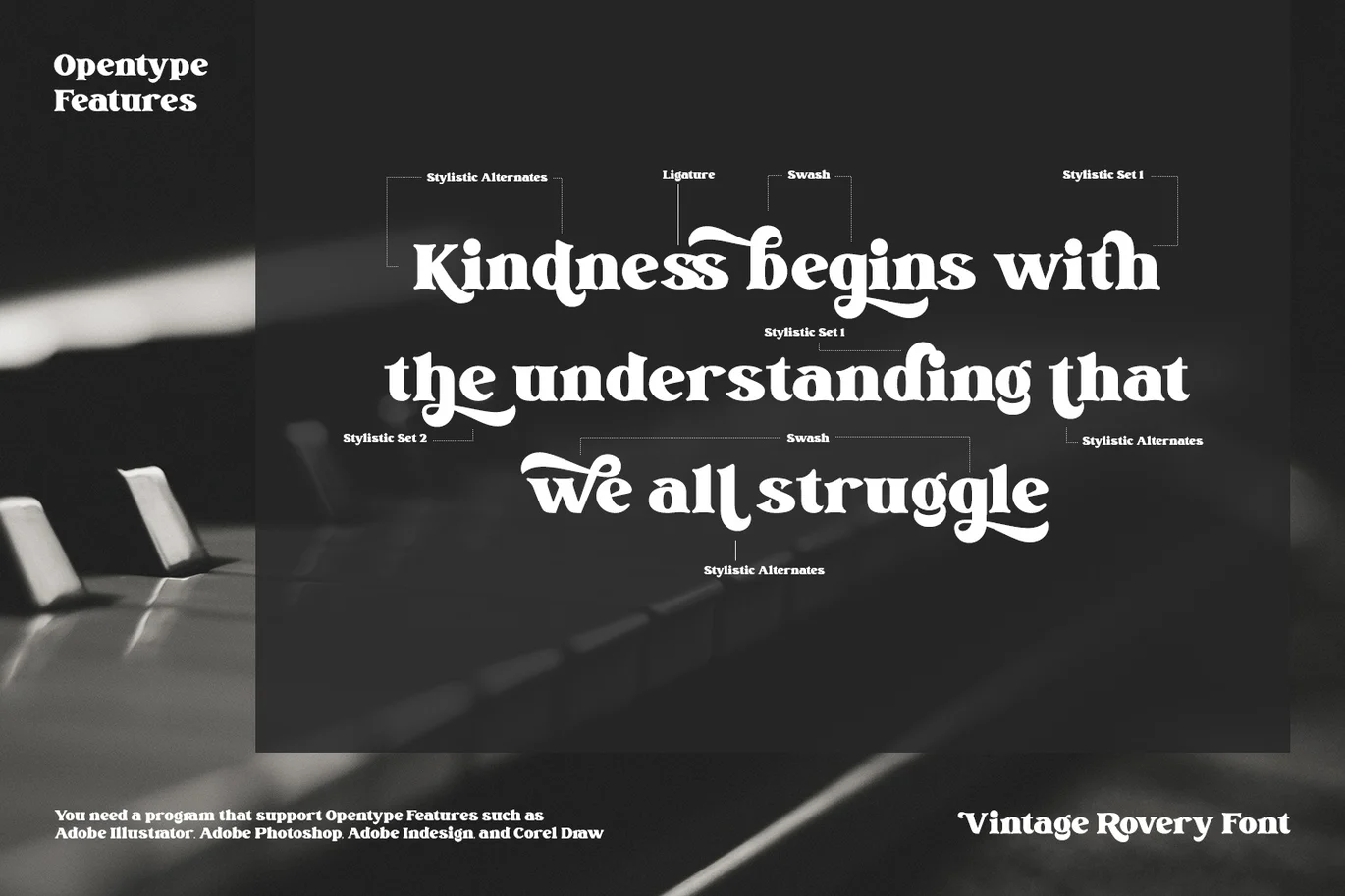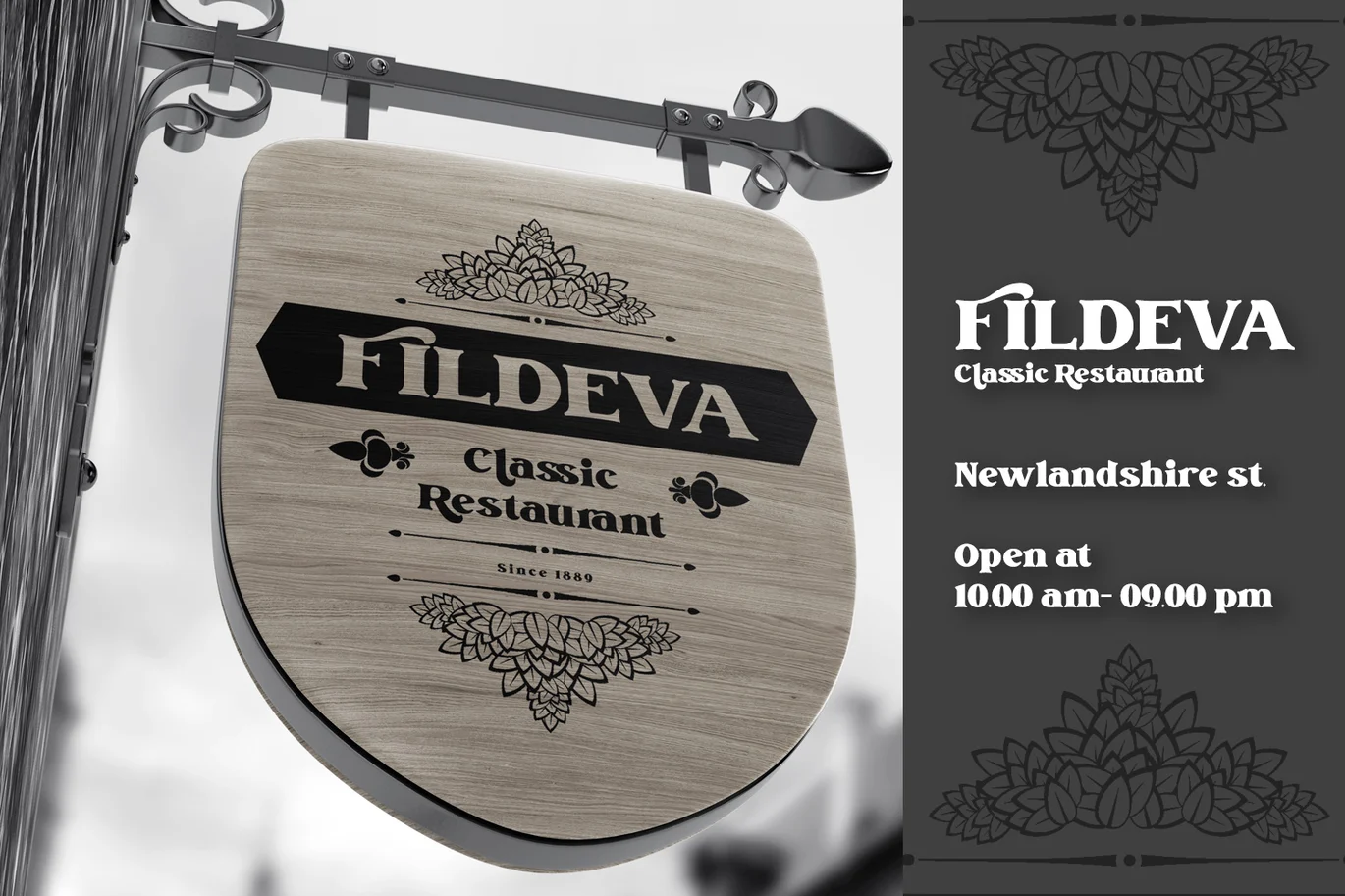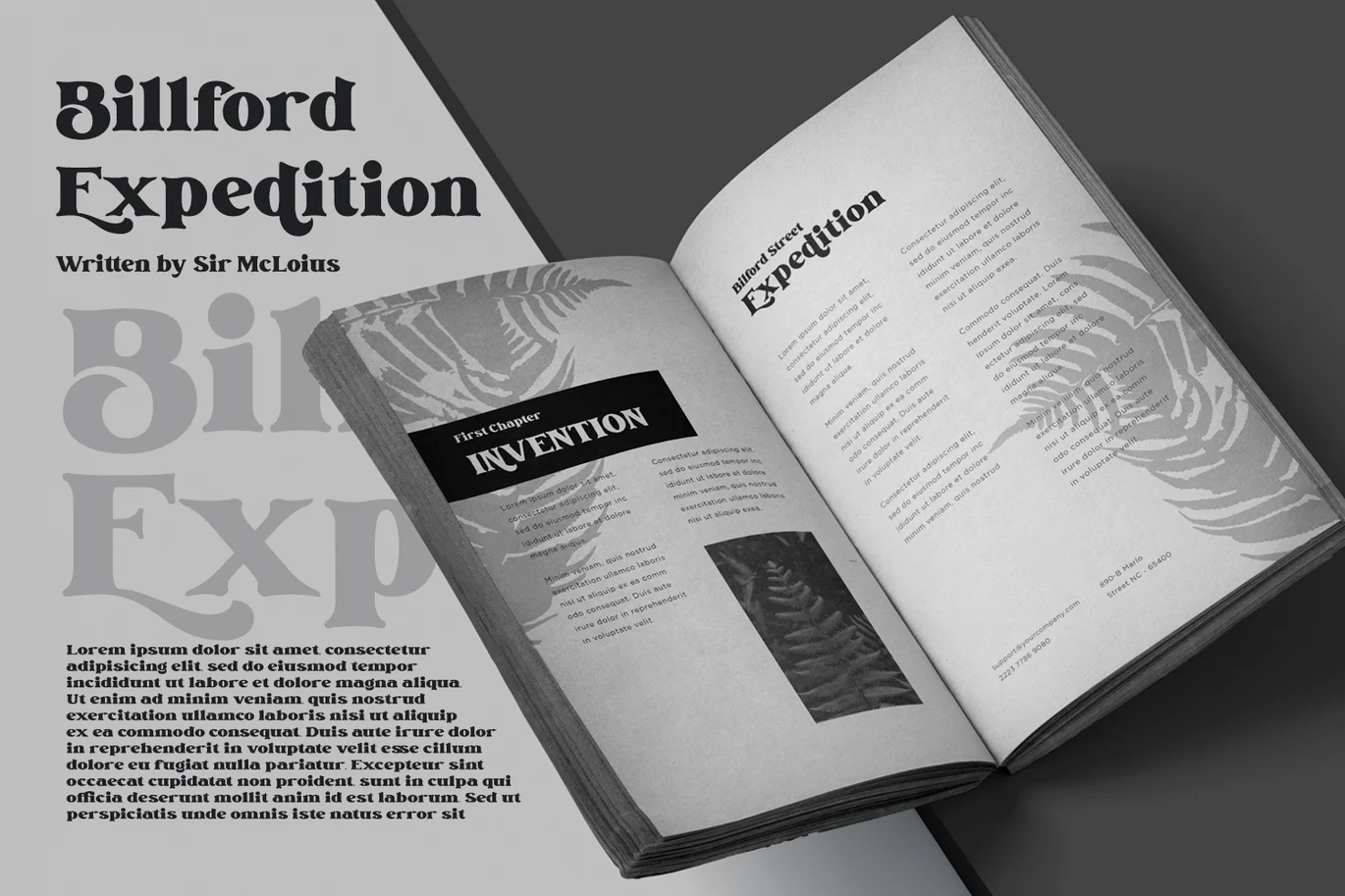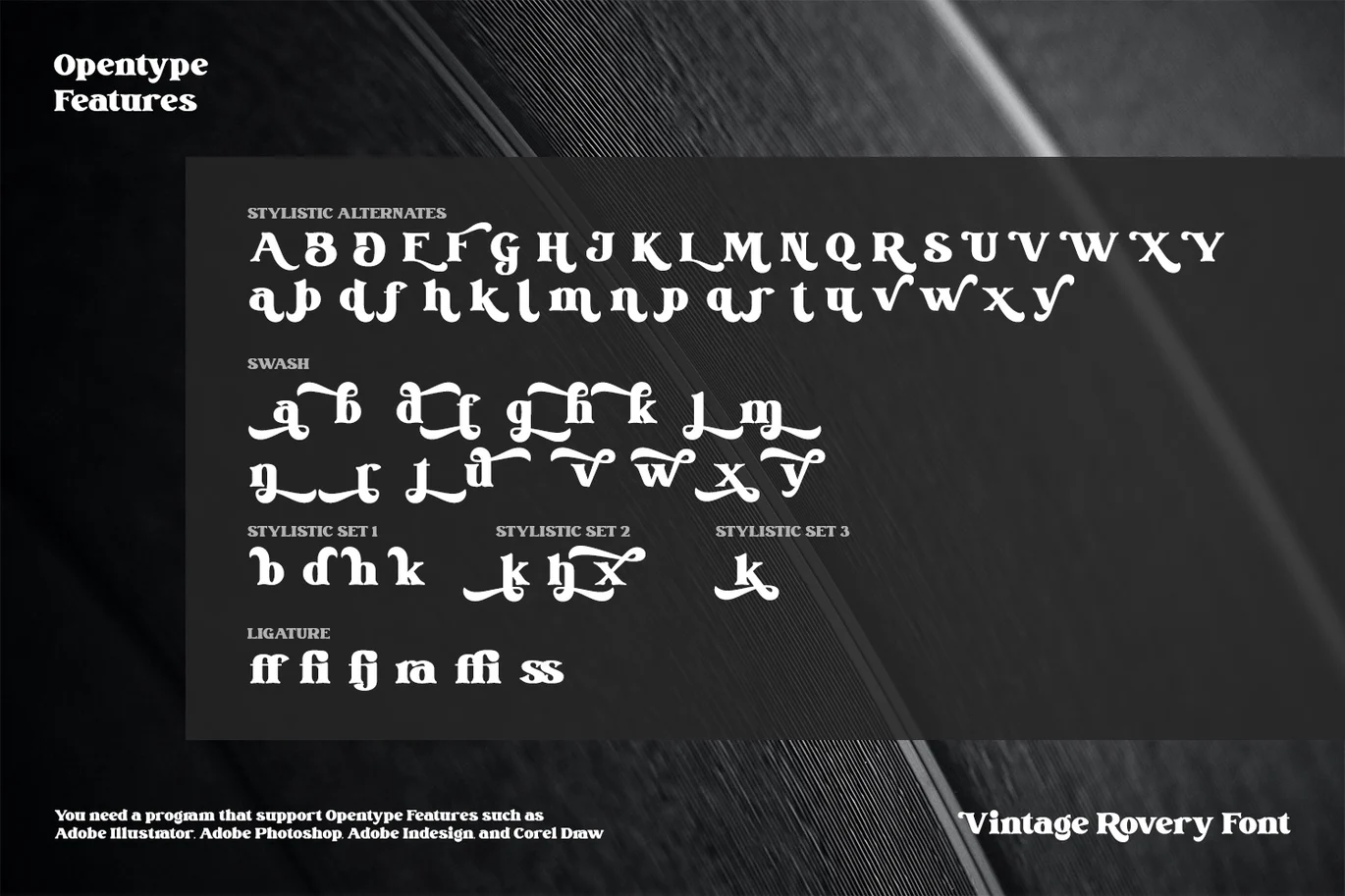
Vintage Rovery – Vintage Fonts
Vintage Rovery is a beautiful handwritten font. It brings an attractive typeface. Made for any professional projects. The font is suitable for any project like logo, t-shirt printing, wedding invitations, and greeting cards to social media quotes, branding, Sign painting and more! Outstanding in a wide range of contexts.
Featured :
- Standard Ligatures
- Stylistic Sets
- Swashes
- Numerals and Punctuation